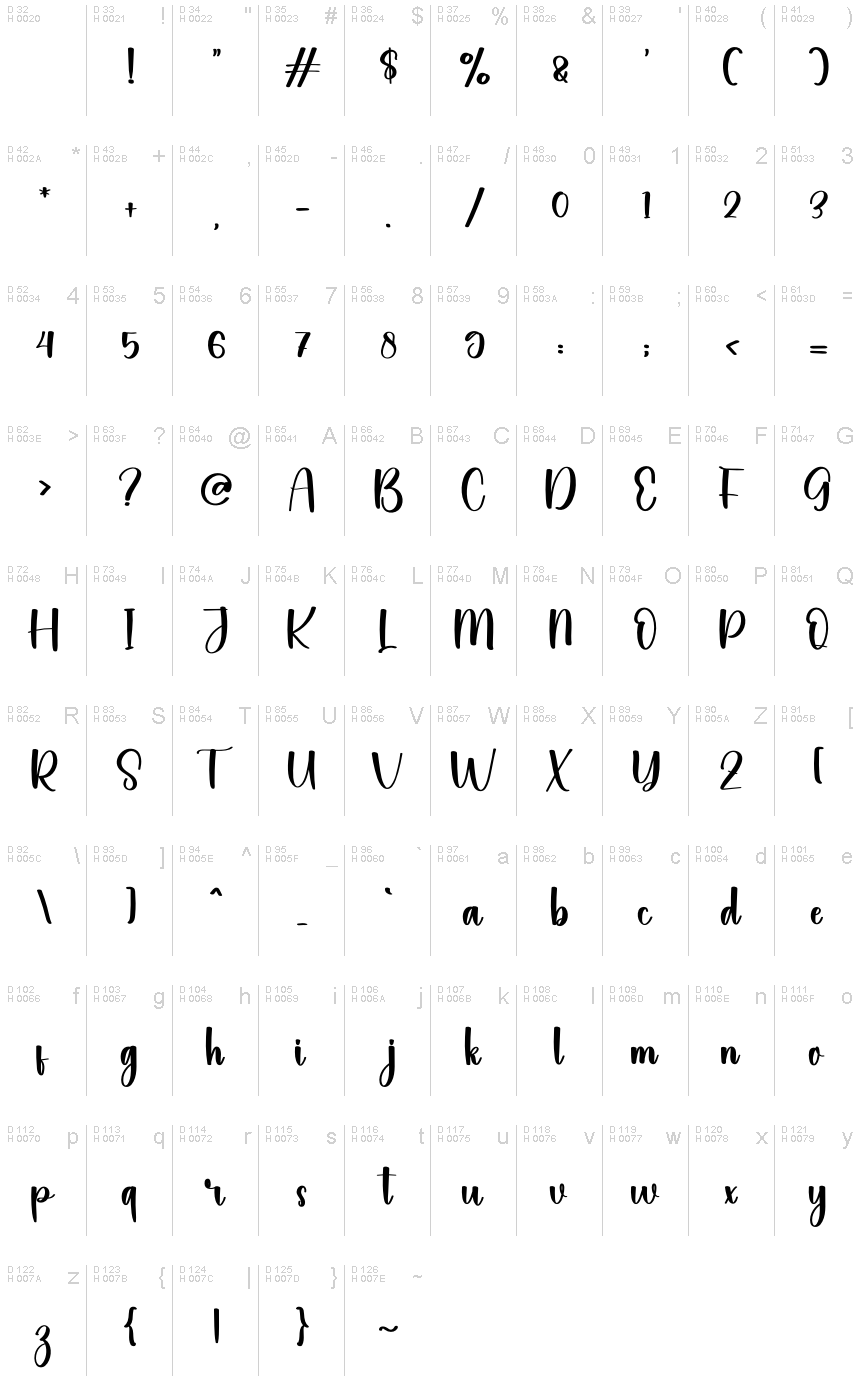
Bunnies
Bunnies is a playful, hand-lettered font that exudes a charming, whimsical appeal. Designed by Inermedia Studio, this font showcases distinctive, organic strokes that lend a sense of effortless elegance.
The rounded, slightly asymmetrical letterforms create a warm, personable aesthetic, making it an ideal choice for a variety of design applications, from stationery and branding to packaging and editorial layouts.
With its versatile and approachable style, Bunnies can seamlessly blend into both contemporary and vintage-inspired design compositions, adding a touch of understated sophistication and visual interest.